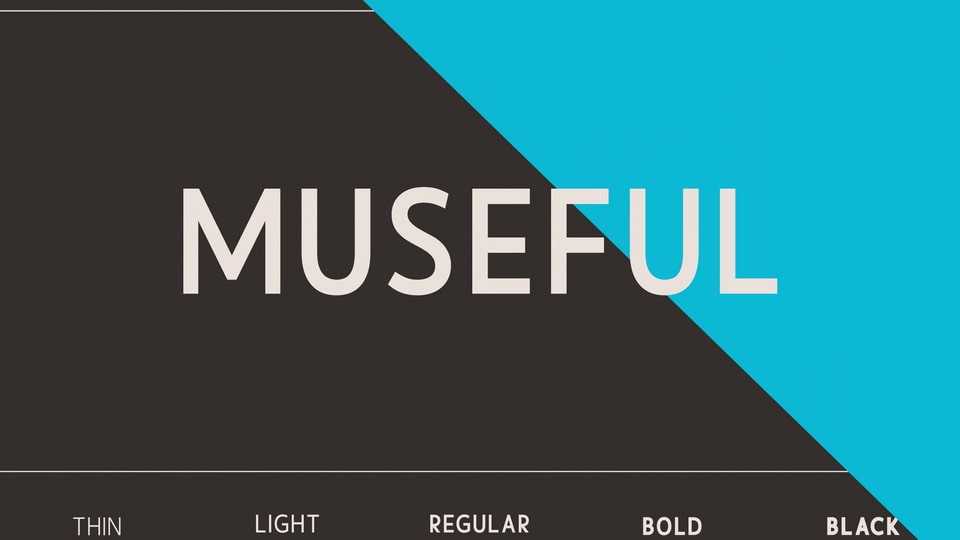
Download Museful font, an embodiment of elegance and minimalism. Crafted with utmost precision, it effortlessly enhances any project, whether it be a magazine, logo, or film poster.
Designer: Nandesign Studio